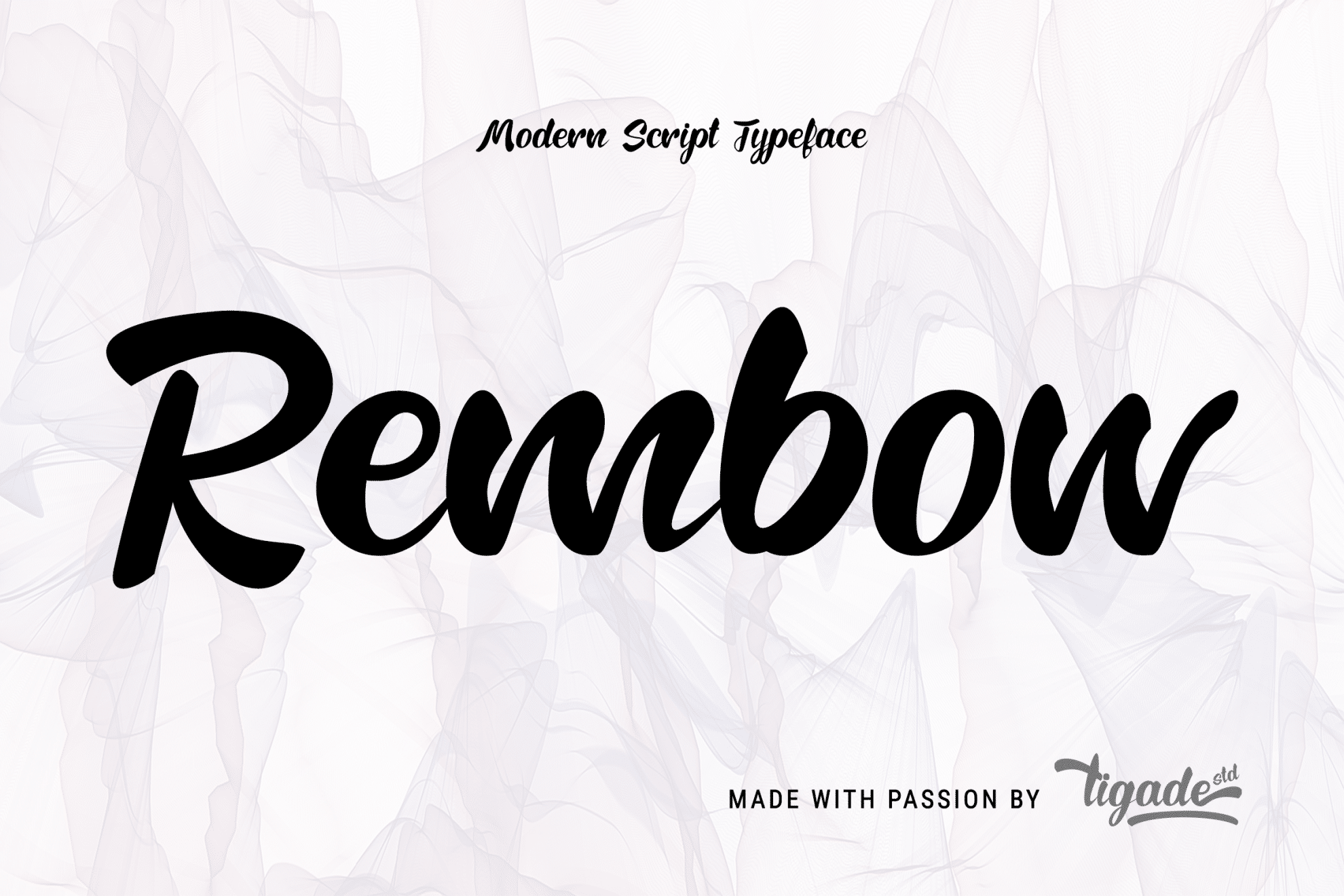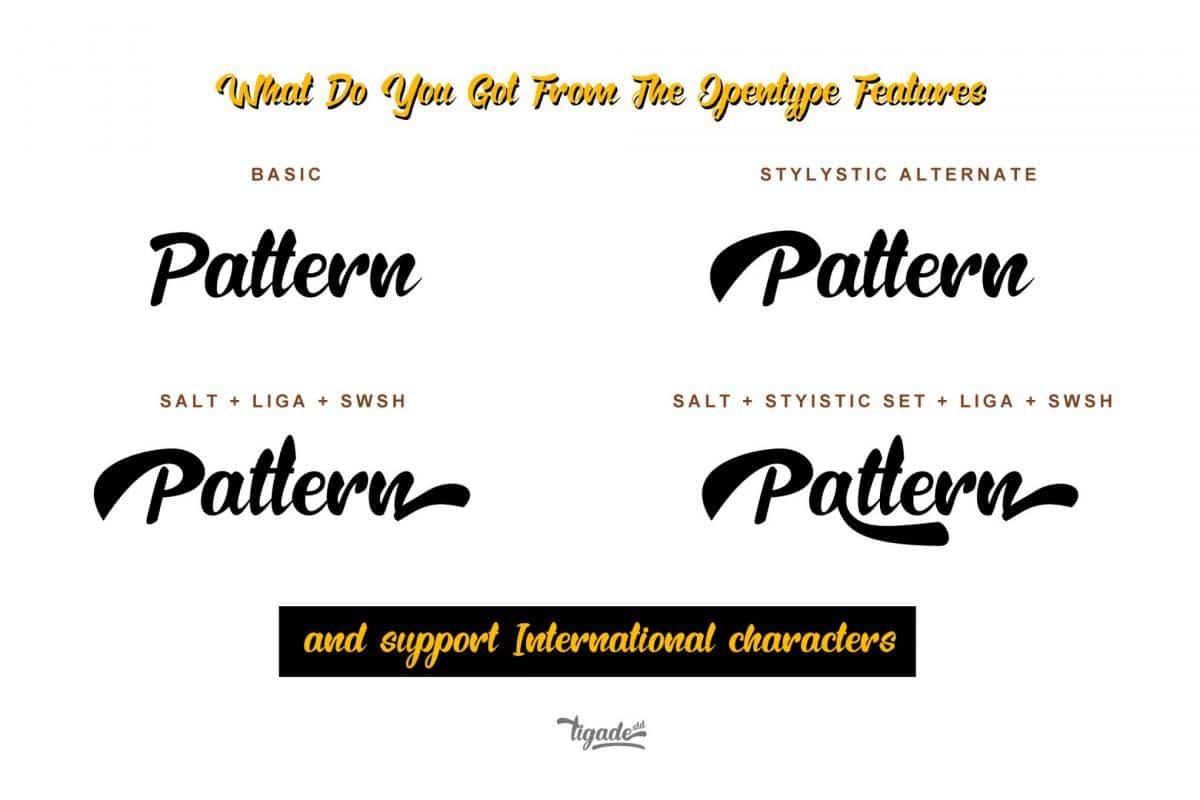
Rembow is a custom calligraphy font which shows the strong but beautiful strokes. It is suitable for any occasions such as logo, brand, or even to write awesome quote on a poster.
It came with a bunch of stylistic alternate glyphs as well as support International characters. Enjoy!
- Designer: Tigade Std